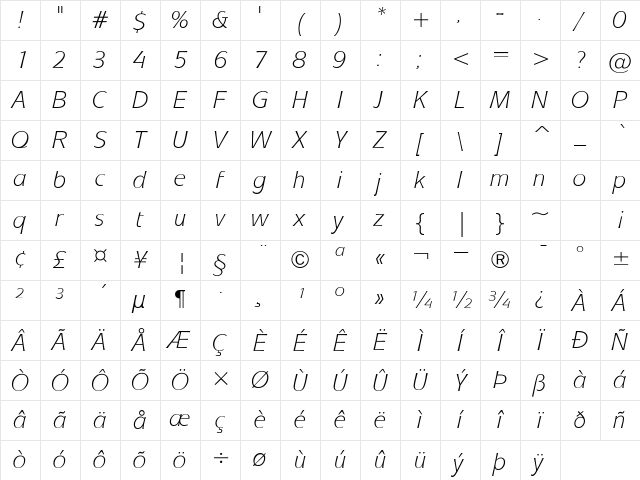
SkiptonLightSSK Italic Free Font
SkiptonLightSSK Italic
Design Context for SkiptonLightSSK
SkiptonLightSSK is a composed and adaptable typeface that performs quietly and consistently across a wide range of design contexts. The slanted form adds forward momentum and visual energy. Its slender proportions lend an understated elegance to any composition.